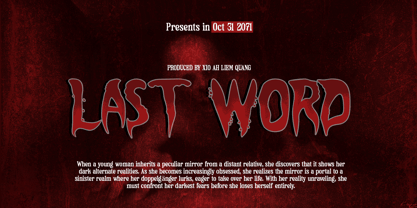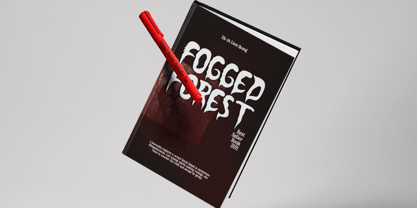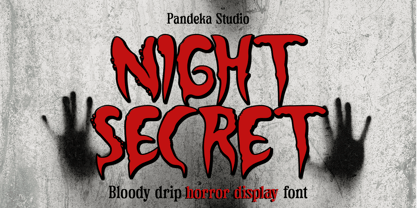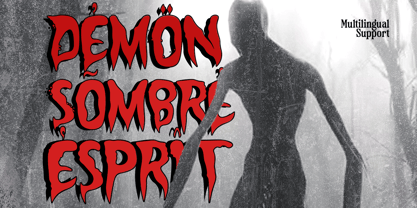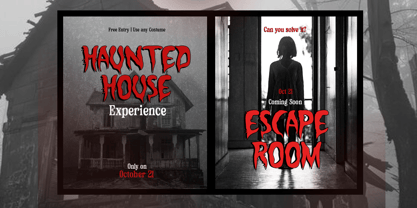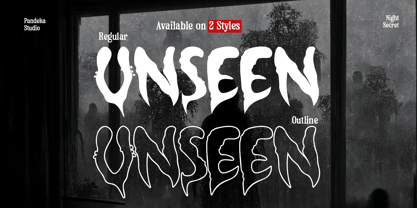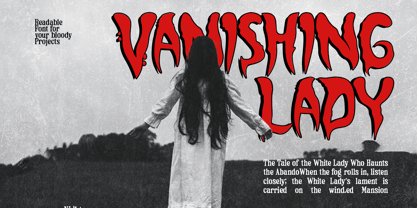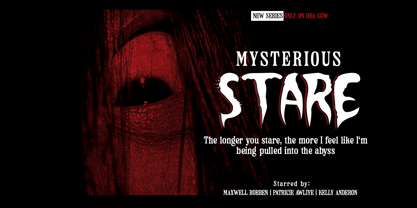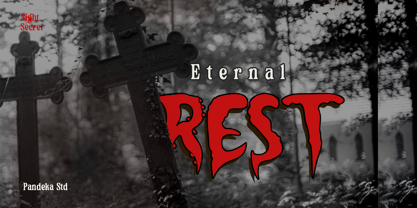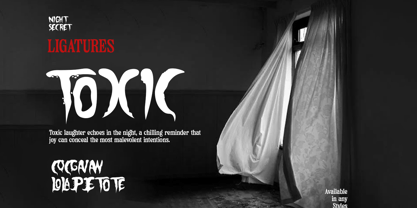
Night Secret
by Pandeka Studio
The Night Secret Font Family was designed by Sagara Nararya and published by Pandeka Studio. Night Secret contains 2 styles and family package options.
Night Secret is a chilling display font that brings an eerie, supernatural vibe to your designs. Crafted in uppercase with both Regular and Outline styles, it combines rounded shapes and sharp edges for a ghostly, suspenseful feel.
The Regular style has haunting brush strokes, while the Outline style adds a spectral, transparent effect. Ideal for larger text, Night Secret is perfect for horror-themed visuals, adding a touch of mystery and darkness to any project.
• Unique letterforms